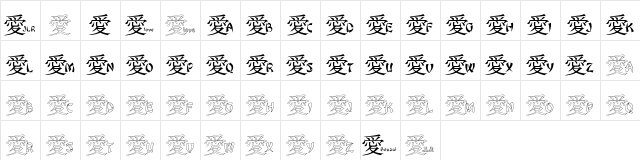
JLR Chinese Love Regular
Design Context for JLR Chinese Love Typeface
JLR Chinese Love is a composed and adaptable typeface that performs quietly and consistently across a wide range of design contexts.